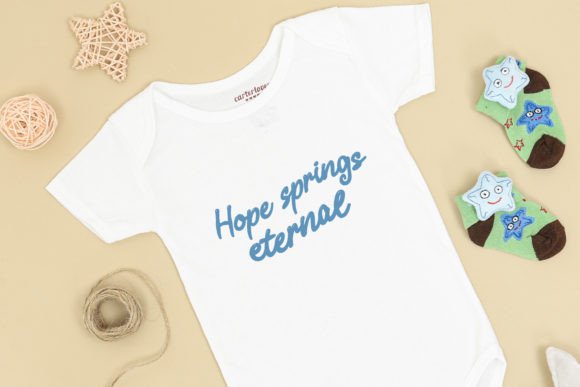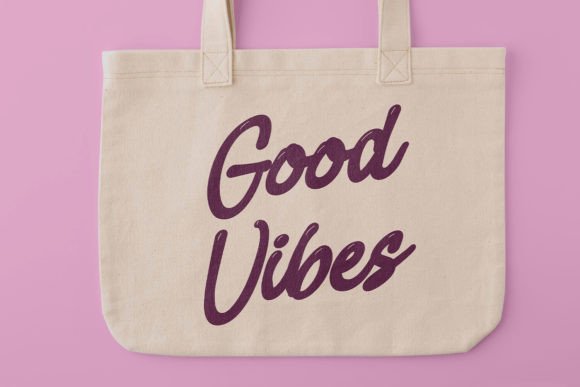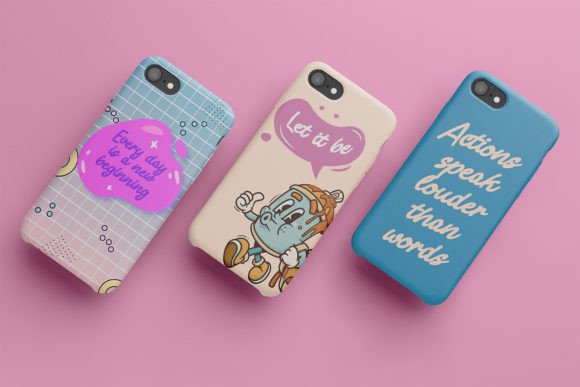
Introduction to Juicy Peach Font
As a designer, there’s nothing quite like the thrill of finding the perfect font to bring your creative project to life. You’re brainstorming ideas, sketching out rough drafts, and experimenting with different styles until suddenly, it hits you – the perfect font to match your vision. For me, that moment came when I stumbled upon the vibrant and playful Juicy Peach Font. Its rounded shapes and bold presence immediately caught my eye, and I knew I had to learn more.
What I love about the Juicy Peach Font is its versatility. Whether you’re working on a high-quality print media project, creating branding materials, or designing a poster, this font is sure to make a statement. Plus, with its transparent background and free download option, it’s an accessible design resource that won’t break the bank.
But what really sets the Juicy Peach Font apart is its grunge version, which adds a distressed and weathered texture to the font. This unique feature gives designers the opportunity to add a touch of authenticity and character to their designs, making it a valuable addition to any design toolkit.
Key Features of Juicy Peach Font
- High-quality, hand-drawn design perfect for creative projects
- Includes a wide range of glyphs and characters, ideal for use in titles, headings, and body text
- Unique, playful style with a soft, peach-inspired color scheme, adding a touch of whimsy to any design project
Honest Review: Juicy Peach Font
As a designer, I’m always on the lookout for high-quality design resources to elevate my creative projects. Recently, I stumbled upon the Juicy Peach Font, and I’m excited to share my honest review with you.
What works well: ✨ The font is a perfect combination of modern and playful styles, making it ideal for a wide range of creative projects, from branding to packaging design. The transparent background is also a bonus, as it allows for easy layering and editing in design software. Plus, it’s a free download, which is a huge plus in my book!
- Unique and modern design style
- Perfect for creative projects that require a playful touch
- Transparent background for easy editing
What’s not so great: ⚠️ While the font is high-quality, it may not be suitable for formal or professional projects that require a more serious tone. Additionally, the font’s size and spacing may require some tweaking to get it just right.
Overall impression: I’m thoroughly impressed with the Juicy Peach Font, and I’m excited to use it in future projects. Its unique design style and free download make it a valuable addition to any designer’s toolkit.
The Juicy Peach Font is perfect for:
Creating eye-catching headings and titles
Designing high-quality marketing materials
Developing engaging social media graphics
Adding a touch of elegance to your website or blog